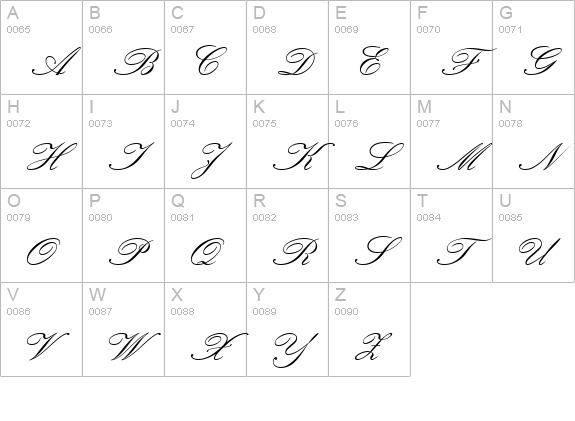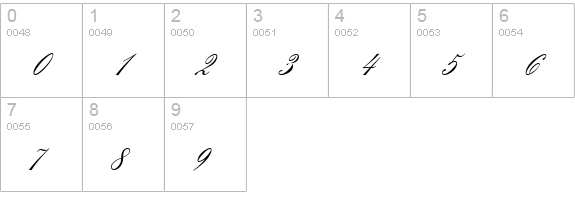
ClassicScrNo1JoiURWDReg Font Details
ClassicScrNo1JoiURWDReg font is a beautifully crafted typeface that exudes elegance and sophistication. Its classic and stylish design makes it perfect for a wide range of projects, from invitations to branding materials. This font features intricate details and graceful curves that add a touch of charm to any text. Best of all, ClassicScrNo1JoiURWDReg font is available for free download at FontsMarket.com. Whether you're a designer looking to spruce up your projects or someone who simply appreciates high-quality typography, this font is sure to impress. Don't miss out on the opportunity to enhance your work with this stunning typeface.